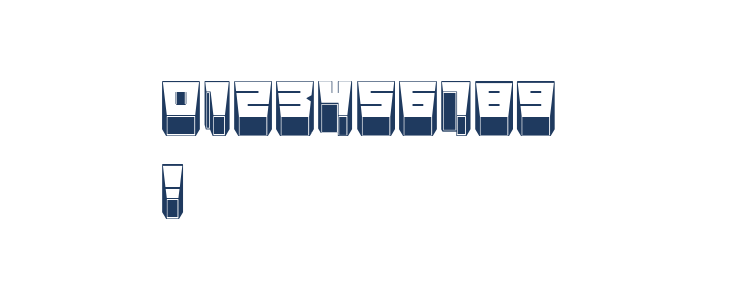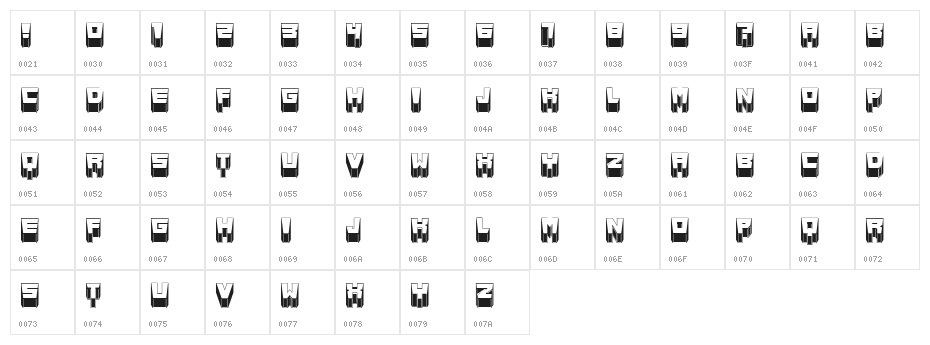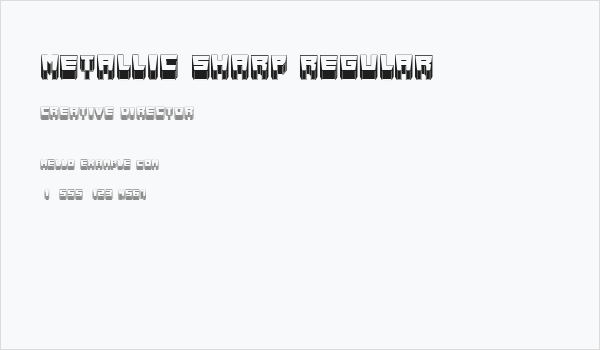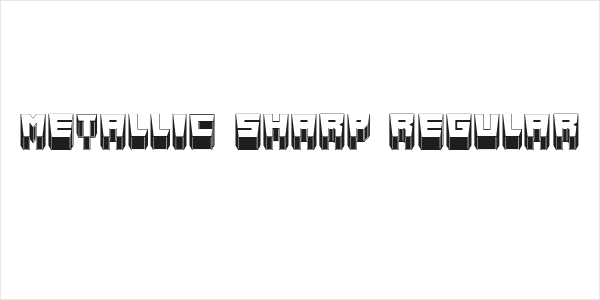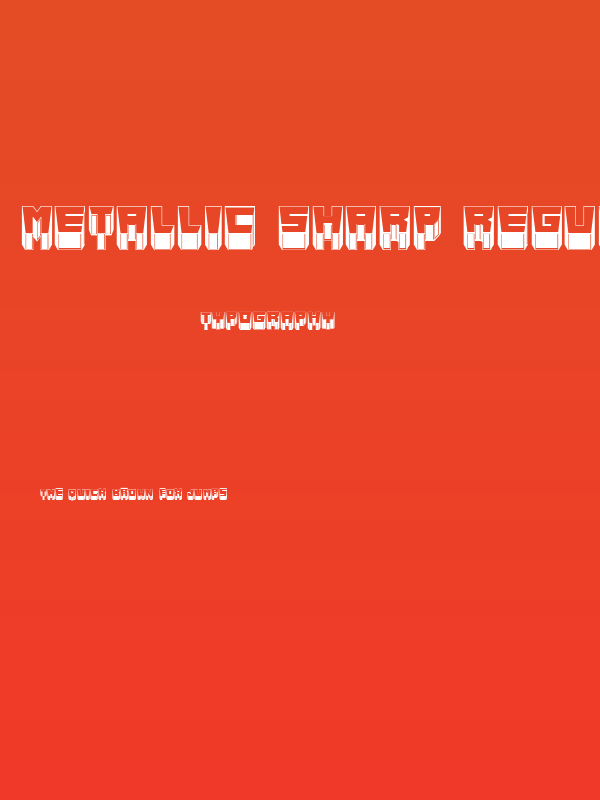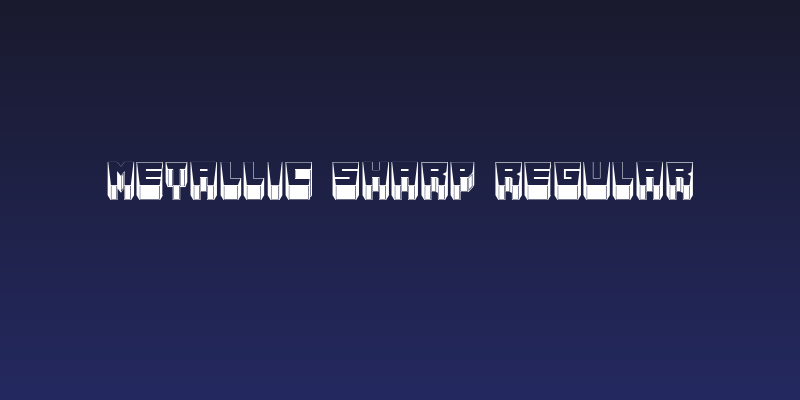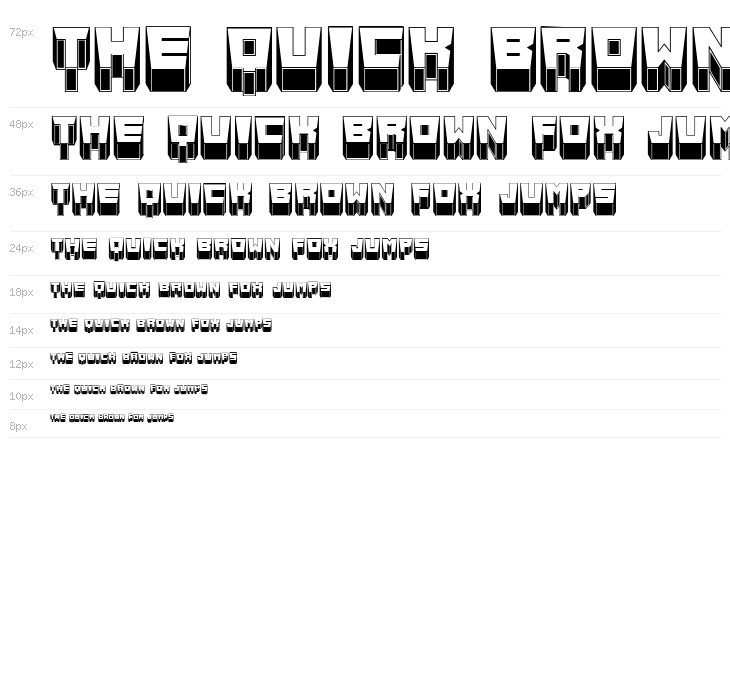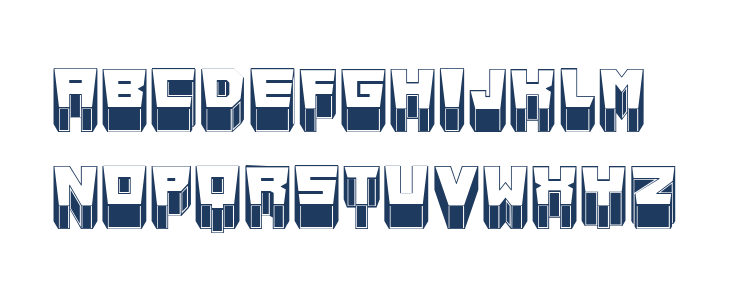
Metallic Sharp Regular Font
Metallic Sharp Regular Description
This font features a bold, three-dimensional design with a metallic and sharp appearance. The characters are blocky and robust, with a distinct shadow effect that gives them a sense of depth and weight. The uppercase and lowercase letters maintain a consistent style, emphasizing strong geometric shapes and clean lines. The numbers and special characters follow the same aesthetic, ensuring uniformity across all glyphs. The font's striking visual impact makes it ideal for attention-grabbing designs.
| Proposed Projects | Ideal for video game titles, movie posters, branding for tech companies, or any project requiring a futuristic and impactful look. |